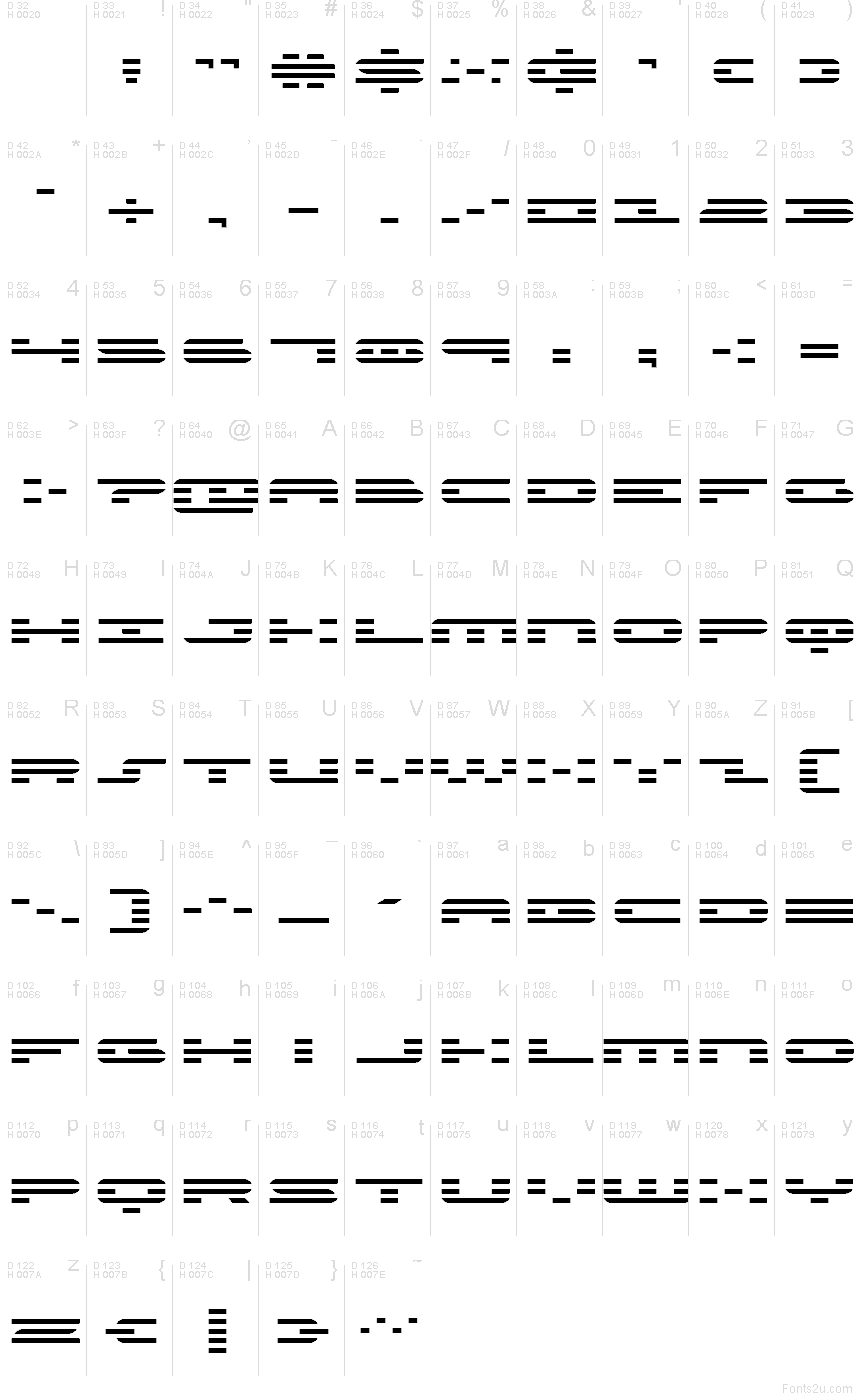
Nova Terra Wide
Nova Terra семейство состоит из 28 шрифты
Nova Terra Wide font by Iconian Fonts is a free futuristic display typeface from the bold Nova Terra family. Its ultra-extended proportions, sharp cuts, and sliced horizontal bars feel like they’ve been lifted from a spacecraft HUD, giving every word a sense of speed and engineered precision. The letters lock together in a low, continuous band of white against black, creating a sleek, neon-lit rhythm that reads clearly even at a distance.
Using Nova Terra Wide, you can push sci-fi game logos, movie titles, esports jerseys, tech conference posters, UI headers, and YouTube thumbnails into full-on space-age territory. This free font works best when you let it breathe in large sizes, then pair it with a simple geometric sans typeface for body copy or fine print.